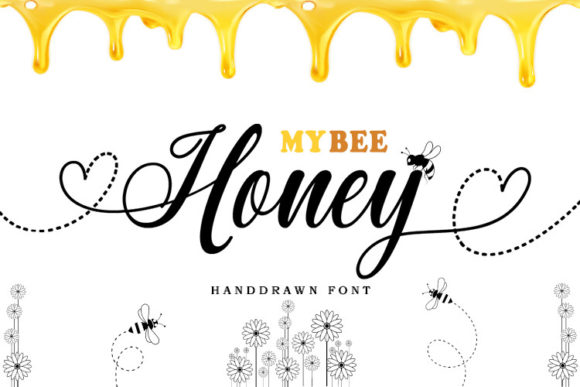
Prepare to be captivated by My Bee Honey Font, a script font that will ignite your creativity and elevate your designs to new heights. Its graceful curves and enchanting style will make your words dance off the page, captivating the hearts of all who lay their eyes upon them.
Immerse yourself in a world of elegance and charm with My Bee Honey Font. Its intricate swashes and flourishes will add a touch of magic to your invitations, logos, branding, and social media posts, making them impossible to ignore. Whether you're a seasoned designer or just starting your creative journey, My Bee Honey Font will empower you to create designs that speak volumes.
But there's more to My Bee Honey Font than just its stunning aesthetics. It's also incredibly versatile, effortlessly adapting to a wide range of design projects. From whimsical tattoos to sophisticated wedding invitations, this font has the power to transform your vision into a captivating reality.
And with its PUA encoding, accessing all of My Bee Honey Font's glyphs and swashes is a breeze. Unleash your creativity without limits and explore the endless possibilities this remarkable font has to offer.